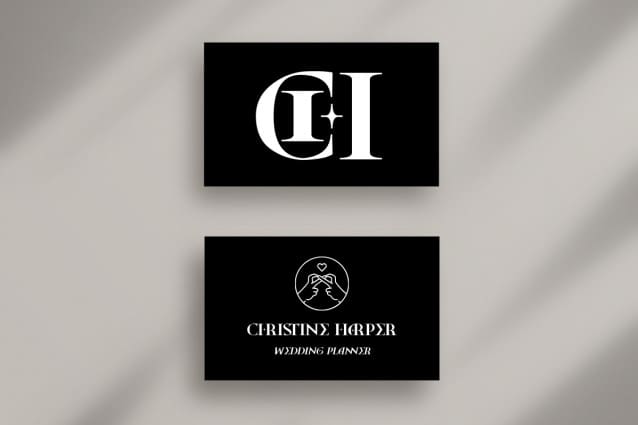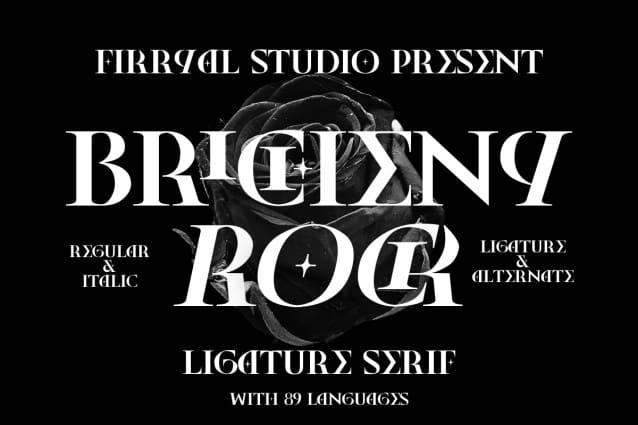
Bricheny Rock Font
Bricheny Rock is an display serif with elegant, and modern character. It comes in two styles, Regular and Italic, and features a wide range of ligatures and alternates that create unique and sophisticated letter combinations.
Designed to exude luxury and class, Bricheny Rock is perfect for branding, logos, editorial design, packaging, typography projects, and more. With its refined details and well-balanced structure, this font will make your designs stand out and look highly professional.